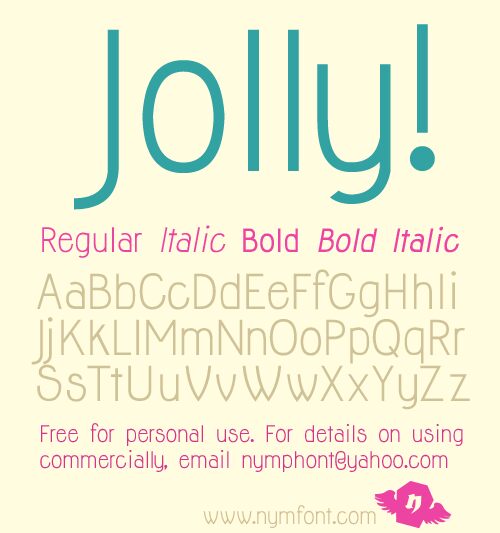
Jolly Bold by Lauren Thompson is a free rounded sans serif with tall, clean letterforms and an easygoing modern look. Its strokes are mostly even, with gentle curves and open, uncomplicated shapes. Slender lines keep the lettering light on its feet.
Its smooth contours echo simple line illustrations, making it a useful match for children's publishing and friendly digital graphics. Packaging and casual event posters can also use its neat, informal manner to soften straightforward messages. In branding, the rounded construction suits approachable shops, cafes, and family-focused products.